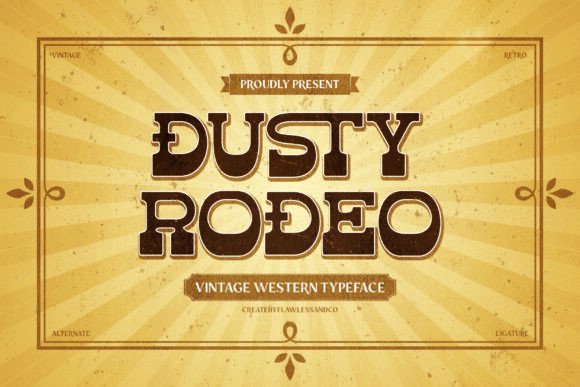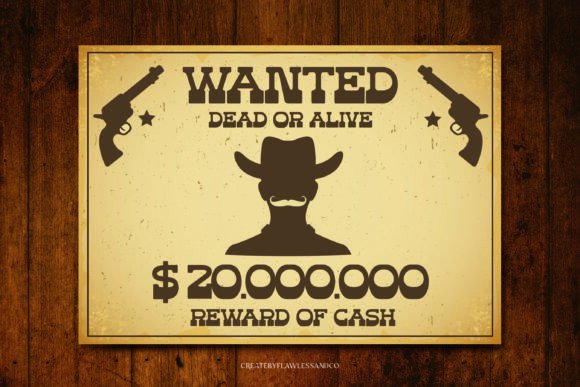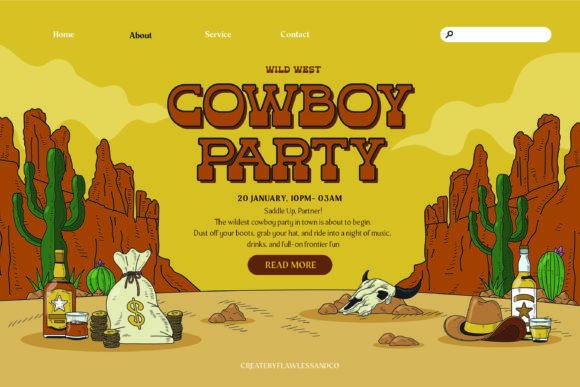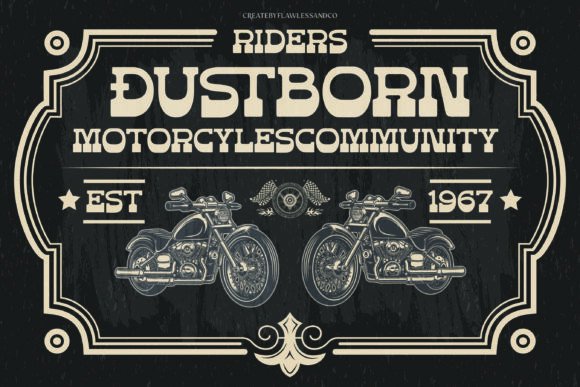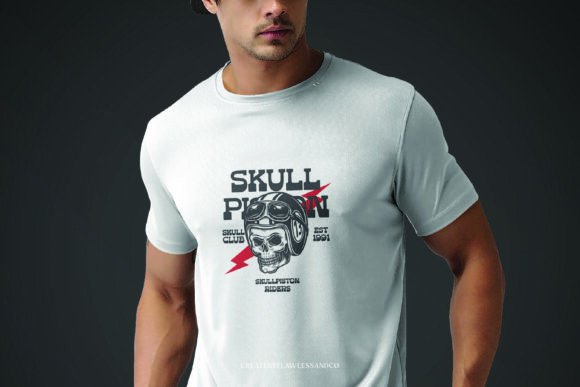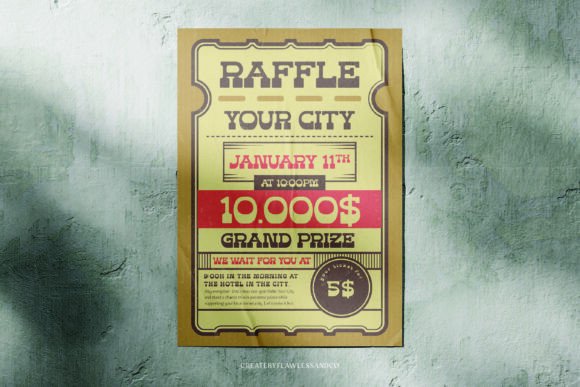
Get Ready to Ride into the Sunset with Dusty Rodeo Font
As a designer, you’ve probably found yourself stuck in a creative rut, searching for that perfect font to evoke the spirit of the Wild West. Maybe you’ve been flipping through old rodeo posters, mesmerized by the bold, vintage character that seems to leap off the page. For me, it was a dusty old postcard from a 1950s rodeo that sparked the idea for Dusty Rodeo Font – a typeface that captures the rugged charm of the American frontier.
| 📌 Product Name | Dusty Rodeo Font |
| 👤 Author | Flawless And Co |
Dusty Rodeo Font is a bold, Western-style slab serif font that delivers a strong, unmistakable Western flair. With its sharp edges and vintage character, this font is perfect for designers looking to add a touch of rustic sophistication to their next project. Whether you’re working on a branding campaign for a Western-inspired business or simply want to add some grit to your next design, Dusty Rodeo Font is a valuable addition to any designer’s toolkit.
Dusty Rodeo Font Key Features
- Font Family: Dusty Rodeo Font
- Unique Characteristics: Distressed, worn, and vintage-inspired design, perfect for western-themed projects
- Language Support: Supports Latin-based languages, including English, Spanish, French, and many more
Dusty Rodeo Font Review
I recently had the chance to work with the Dusty Rodeo Font, and overall, I was quite pleased with its performance. ✨ The font’s unique blend of rustic and vintage elements added a lot of character to the designs I was working on. The distressed textures and subtle imperfections gave it a worn, authentic feel that was perfect for projects with a country or western theme.
One of the standout features of the Dusty Rodeo Font is its versatility. ✨ It can be used for a wide range of applications, from headings and titles to body text and even logos. The font also comes in multiple weights, allowing designers to easily create a range of visual effects and add depth to their designs.
While the Dusty Rodeo Font is a solid choice for many projects, there are a few limitations to consider. ⚠️ For one, the font can be a bit difficult to read at small font sizes, particularly for body text. Additionally, the distressed textures can sometimes make it difficult to achieve a crisp, clean look, especially when using bold or heavy weights.
- Limited legibility at small font sizes
- Can be difficult to achieve a clean, crisp look with bold or heavy weights
Overall, I’m a big fan of the Dusty Rodeo Font. While it may not be the best choice for every project, it’s a great option for designers looking to add some unique character and personality to their work. With its versatility, wide range of applications, and unique visual effects, it’s definitely worth considering for your next design project.
Getting the Most Out of Dusty Rodeo Font
To get the most out of the Dusty Rodeo font, use it for:
1. Western-themed designs.
2. Country-inspired graphics.
3. Retro-style advertisements.
The Dusty Rodeo font is commonly used for:
1. Branding for country music festivals.
2. Western-themed merchandise.
3. Retro-style posters and flyers.
Comparison to Dusty Rodeo: Western has a more refined and elegant look compared to Dusty Rodeo’s rugged, distressed feel. It is better suited for applications where a more polished look is desired.
The Great Vibes font is a fun, energetic script font that is perfect for use in titles, headings, and other applications where a playful, laid-back vibe is desired.
Comparison to Dusty Rodeo: Great Vibes has a more casual, carefree feel compared to Dusty Rodeo’s rugged, western-inspired aesthetic. It is better suited for applications where a fun, energetic look is desired.